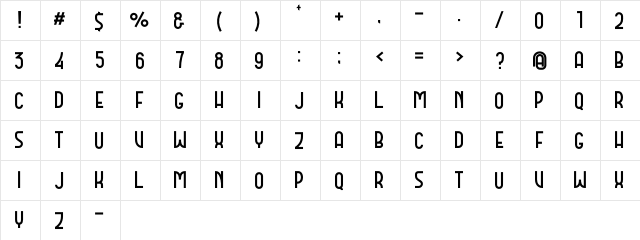
DOMCO 01 Regular Font Preview
DOMCO 01 Regular
| Designer | Muhammad Romzul Khoir |
Design Context for DOMCO 01 Typeface
DOMCO 01 takes a measured approach to typography — its balanced proportions and neutral character make it a reliable workhorse for both digital and print work.